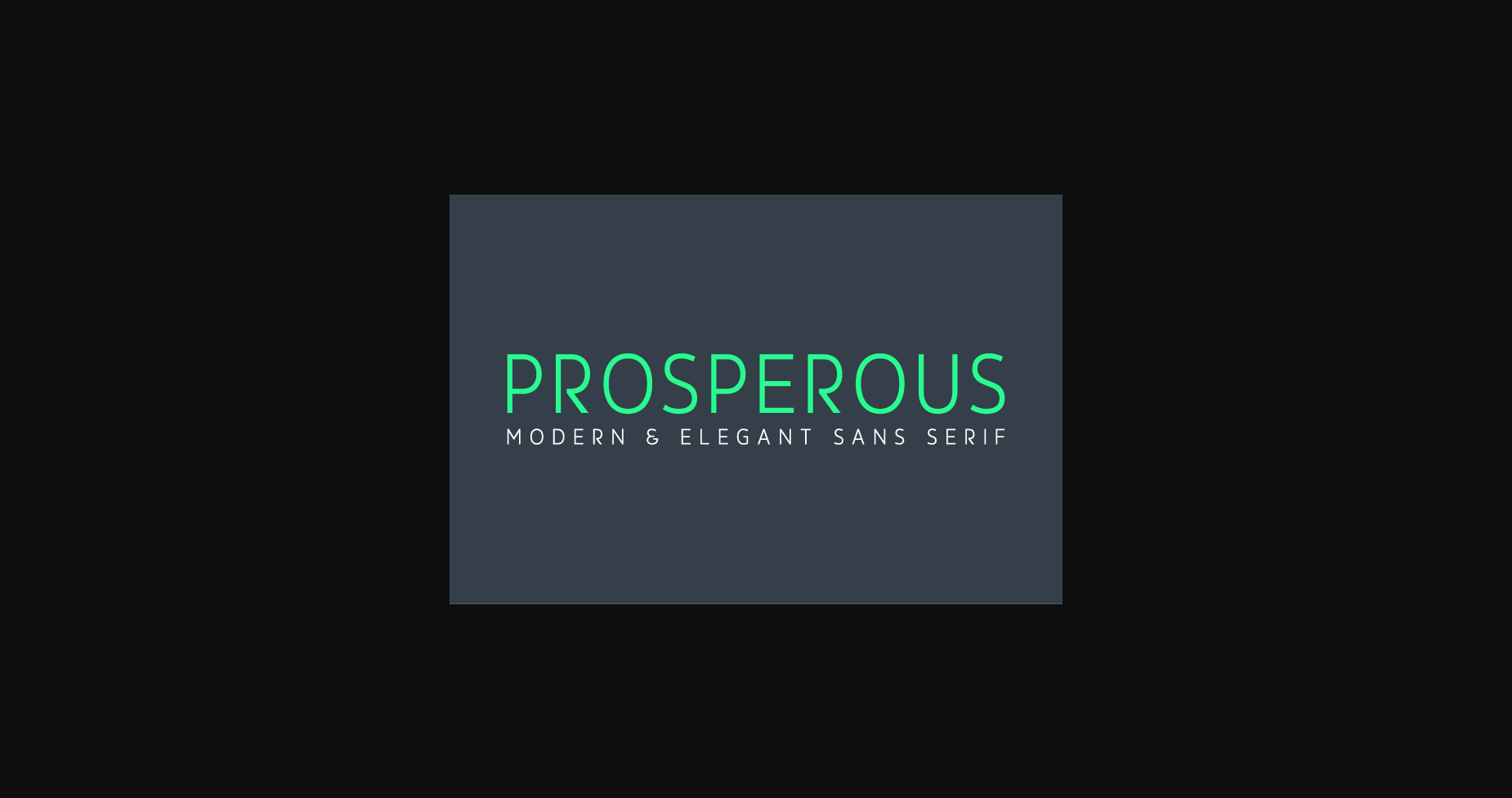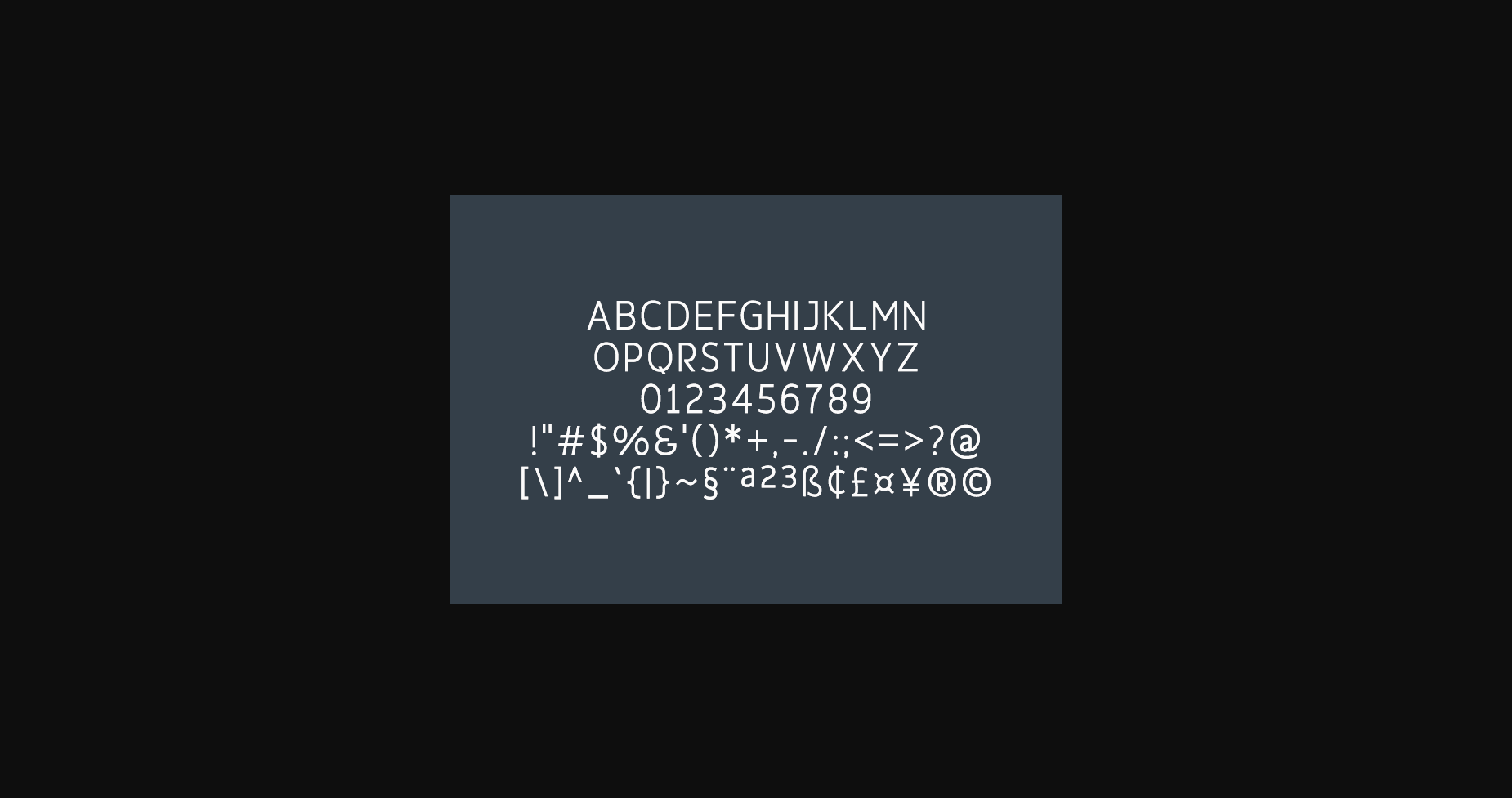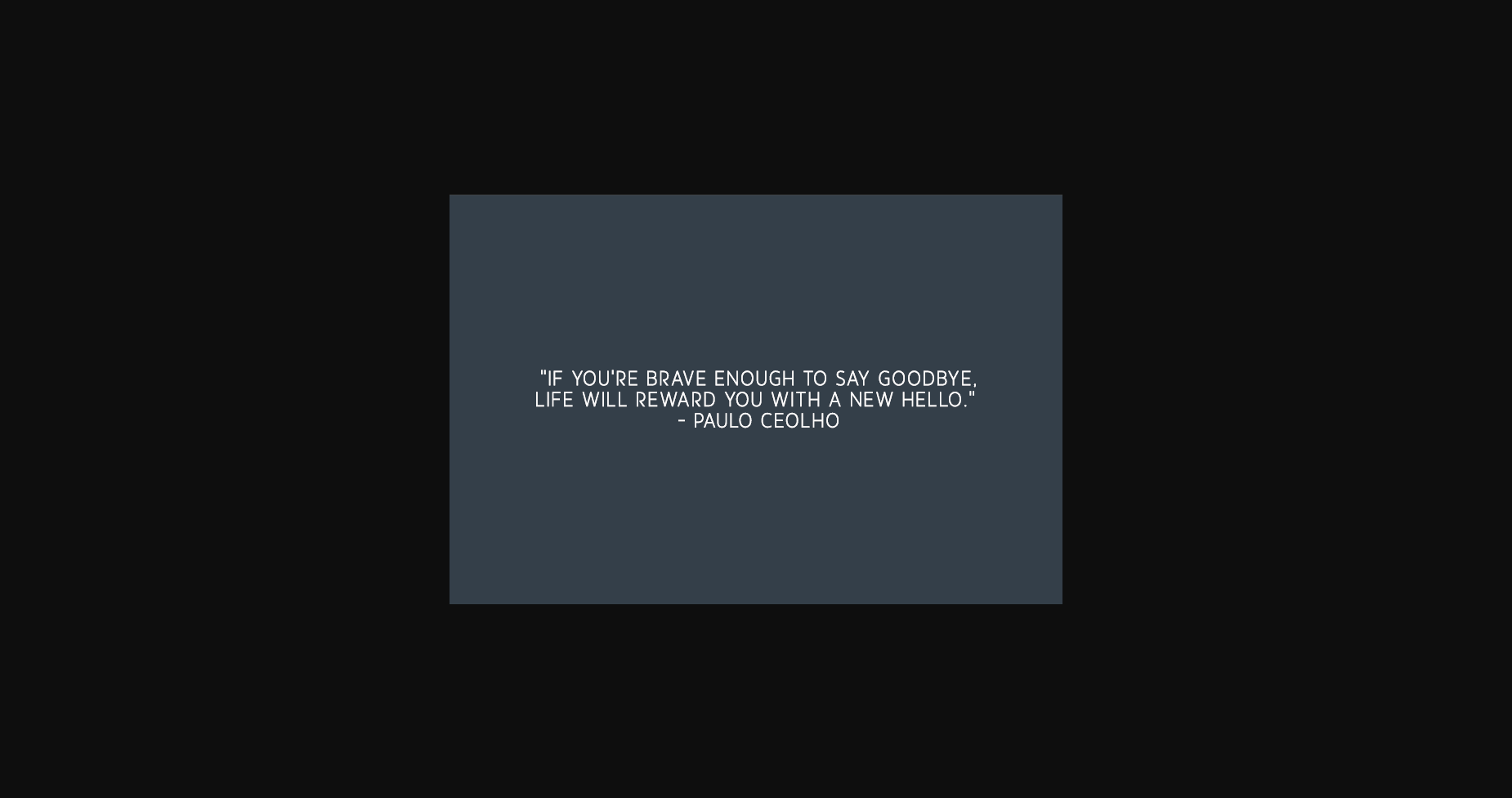
Prosperous Font
Prosperous is a stunning sans serif to complement every project you’re working on.
Use to create beautiful headings, gorgeous invitations, stunning logos, and so much more!! Perfect for displays, headers, invitations, save the dates, weddings, and so much more! It contains an uppercase alphabet with numbers and symbols.